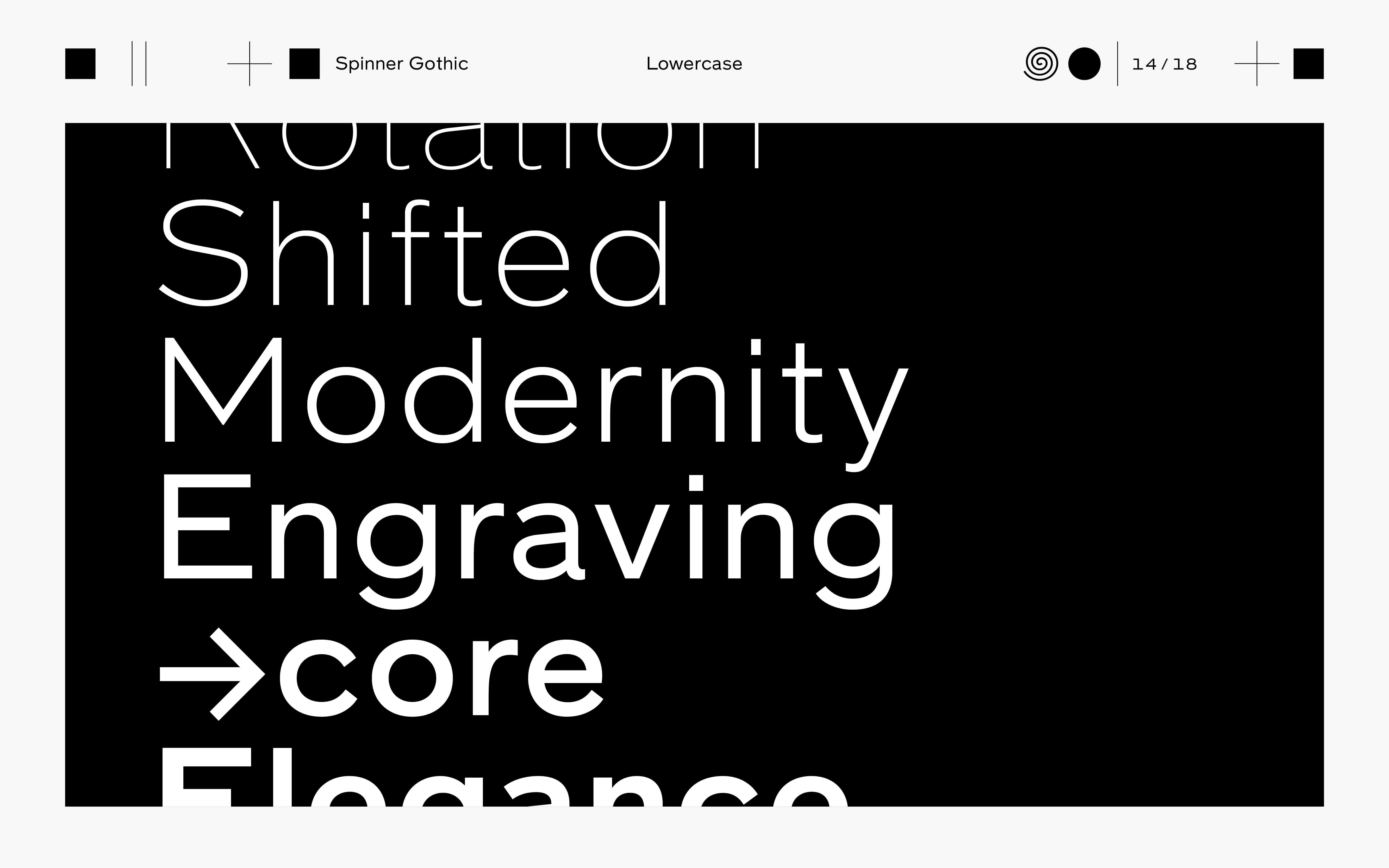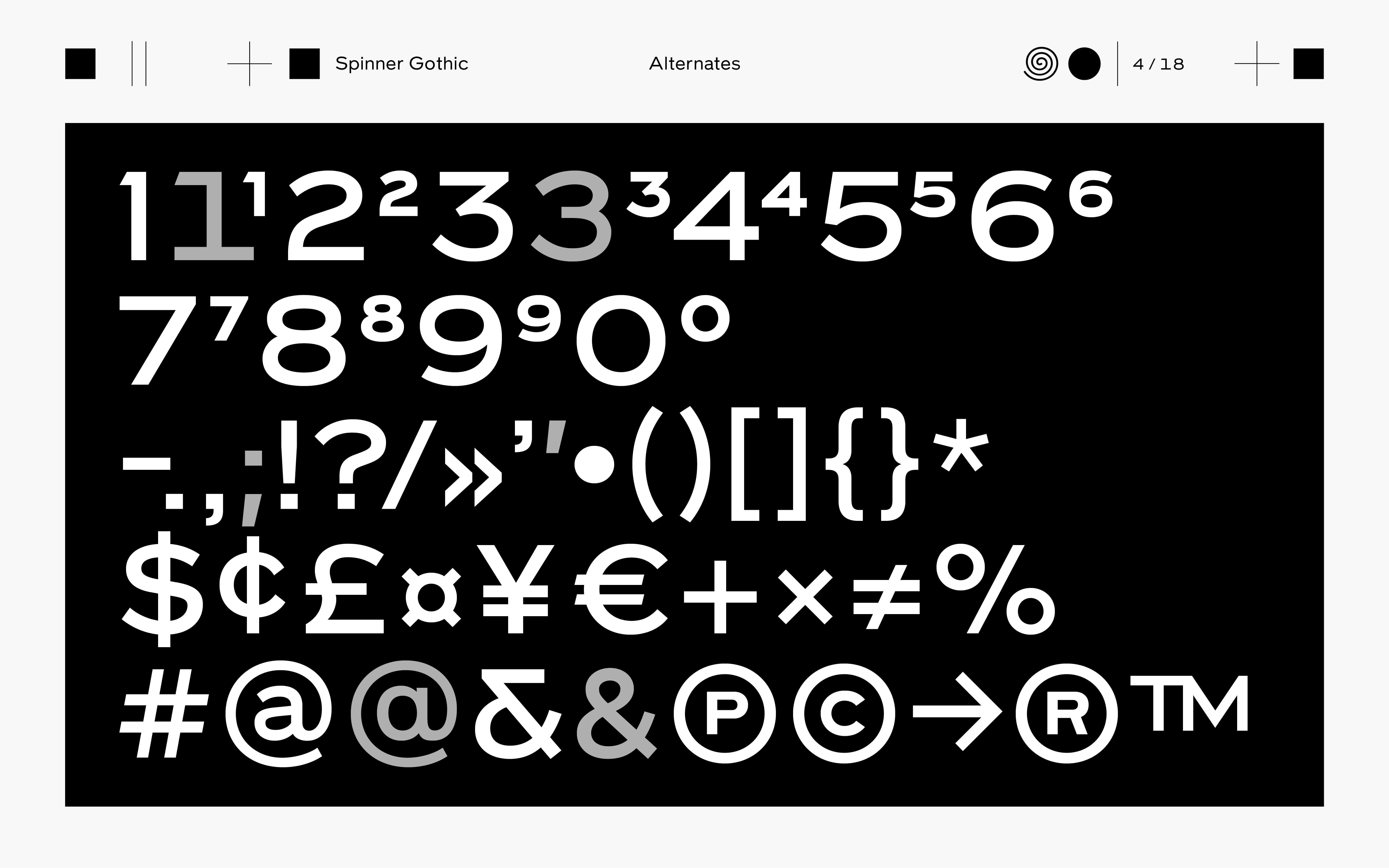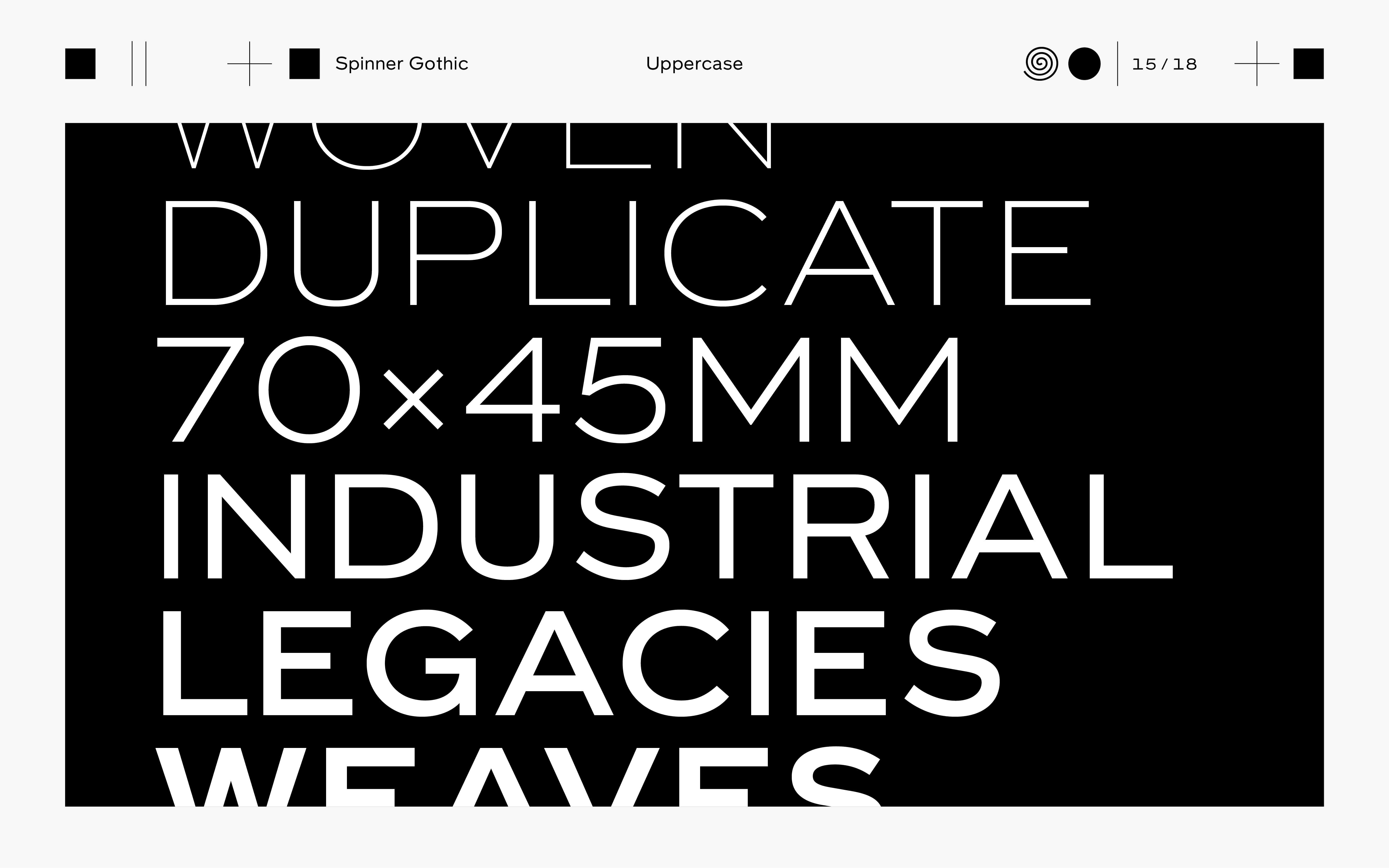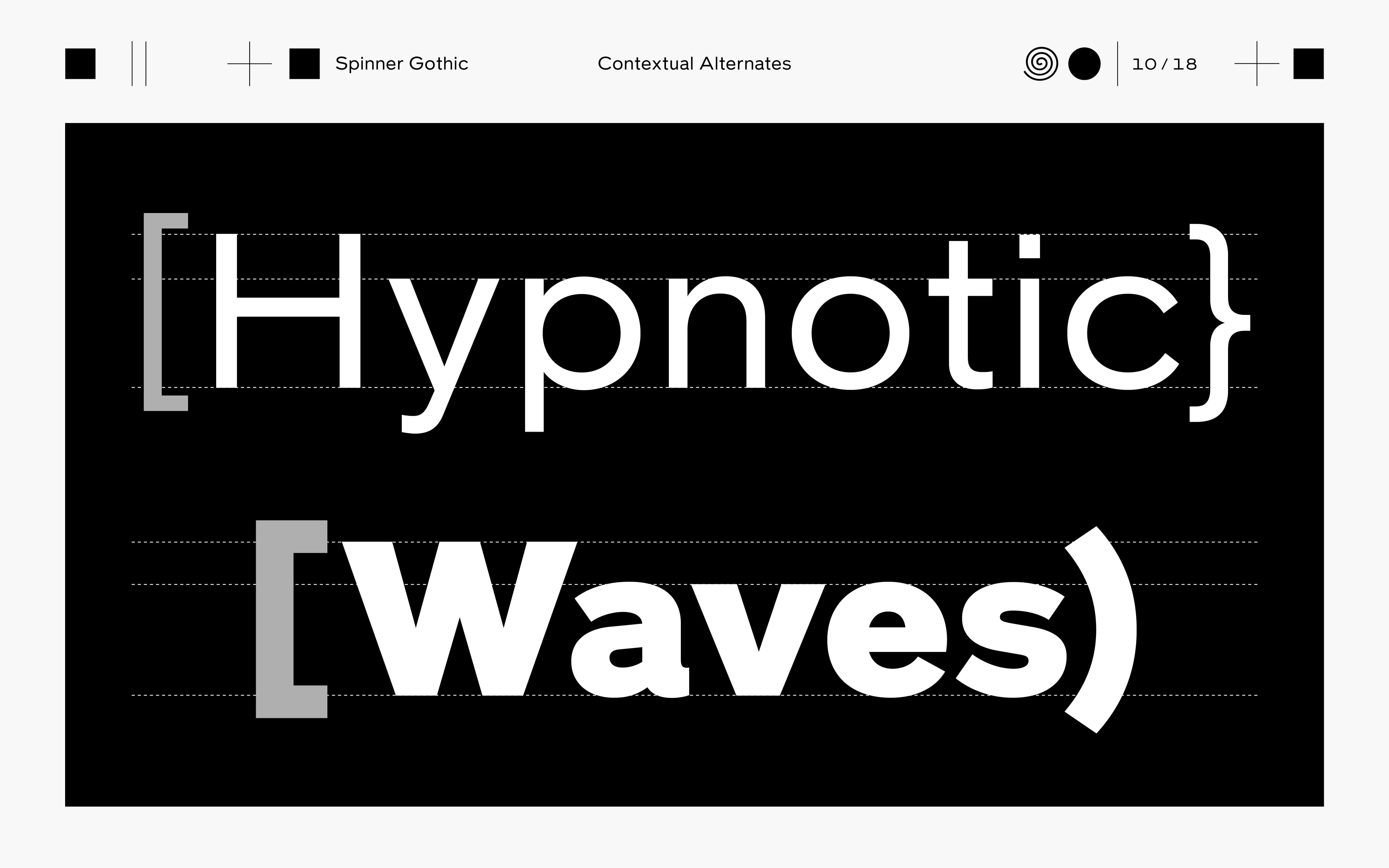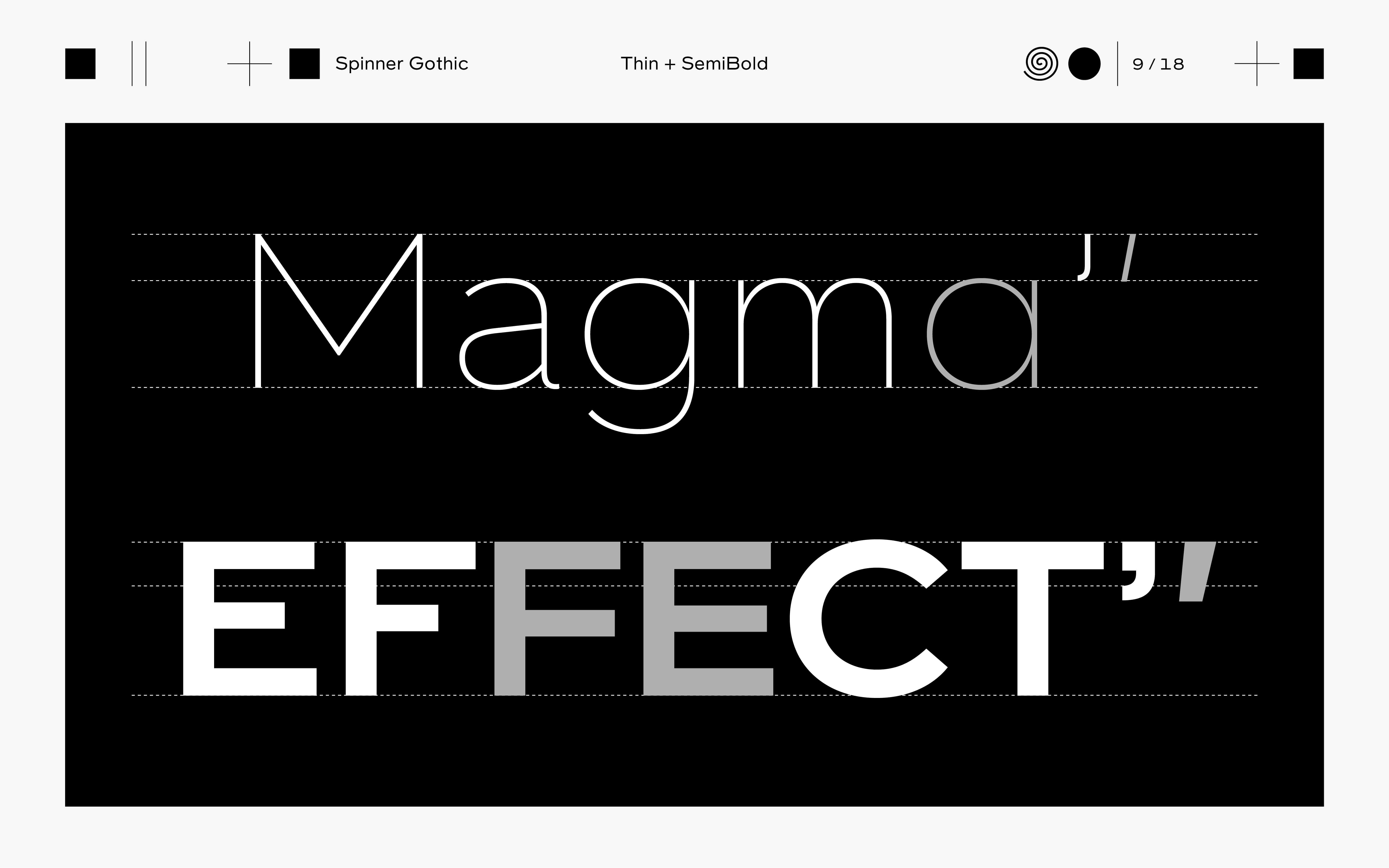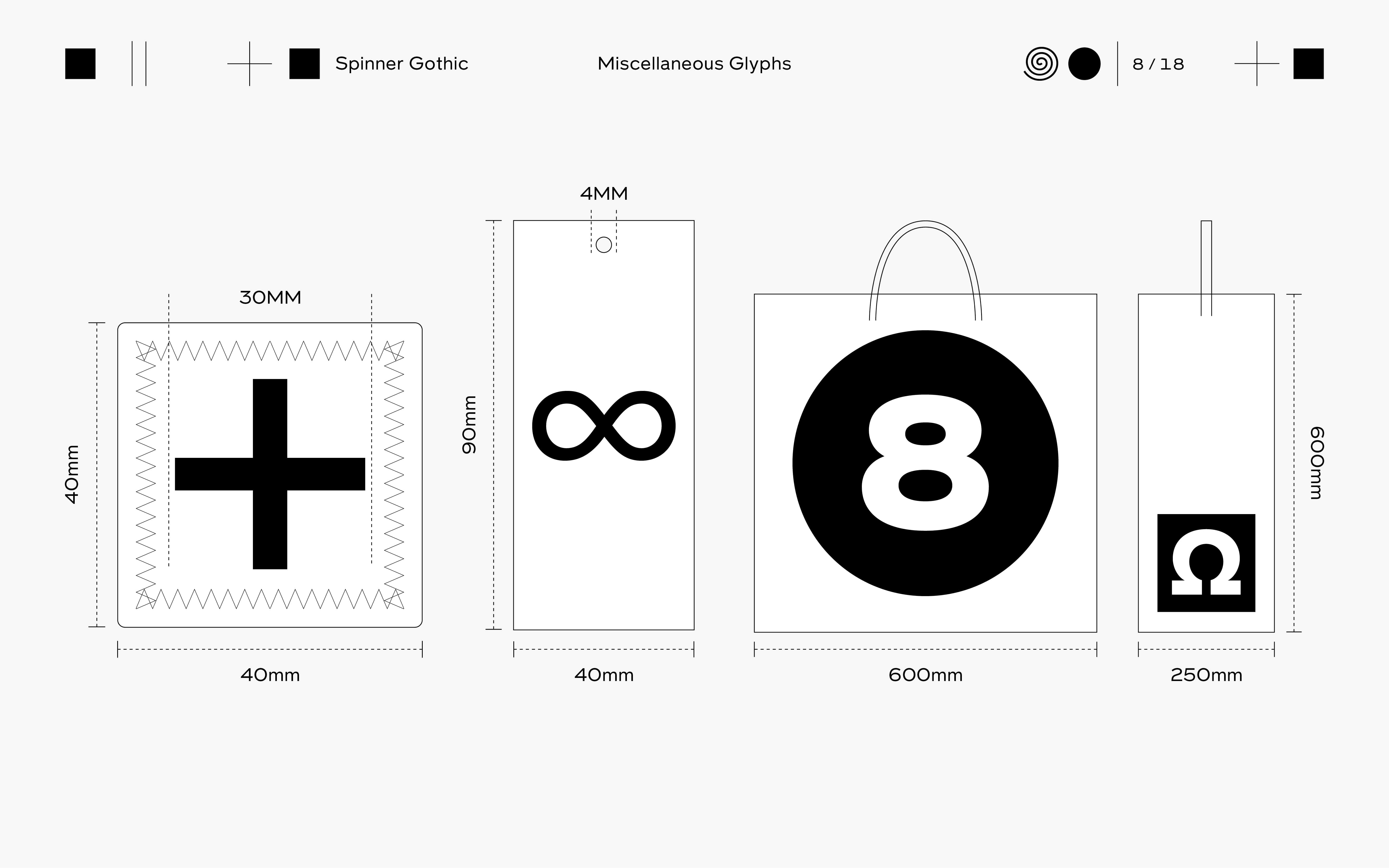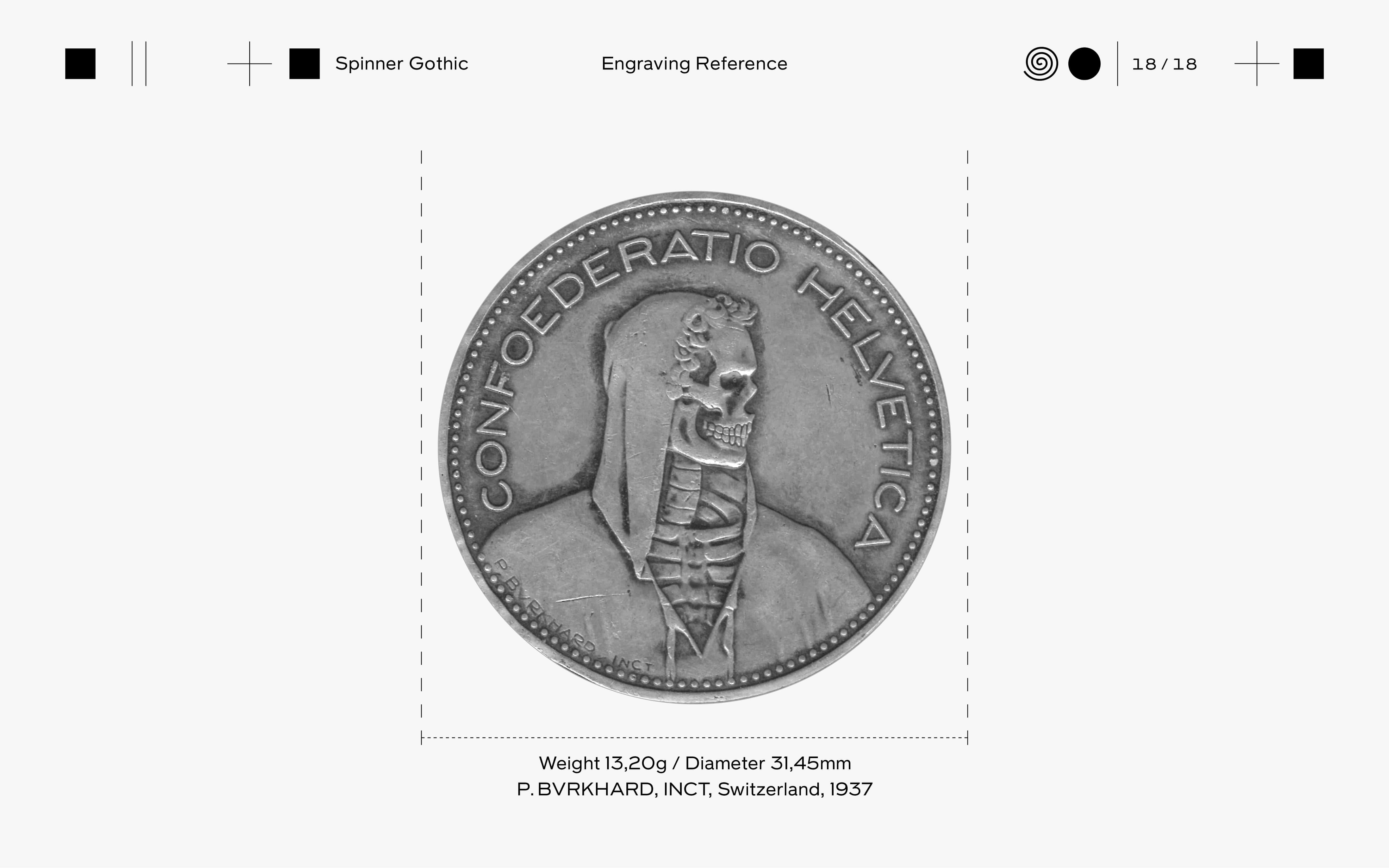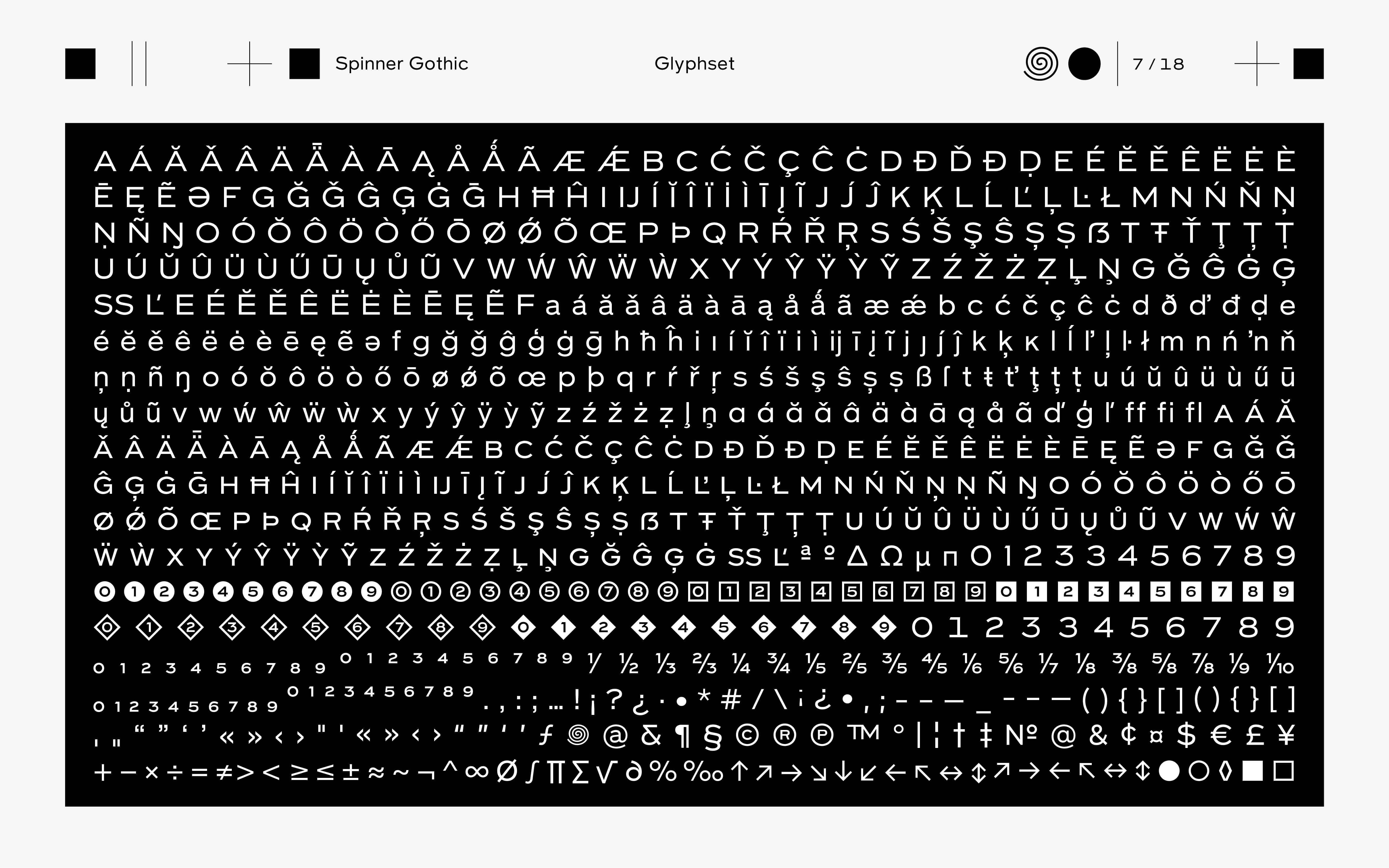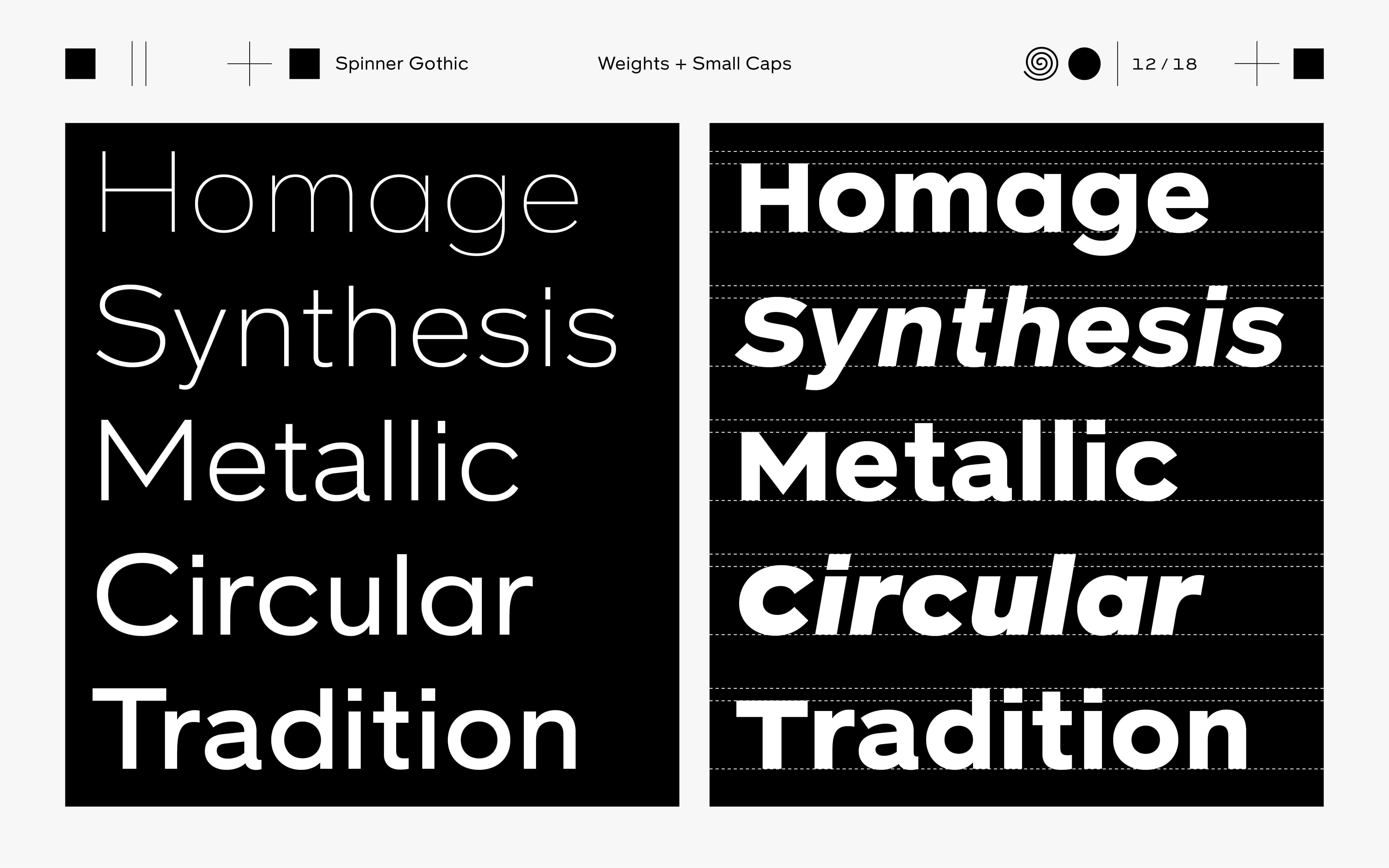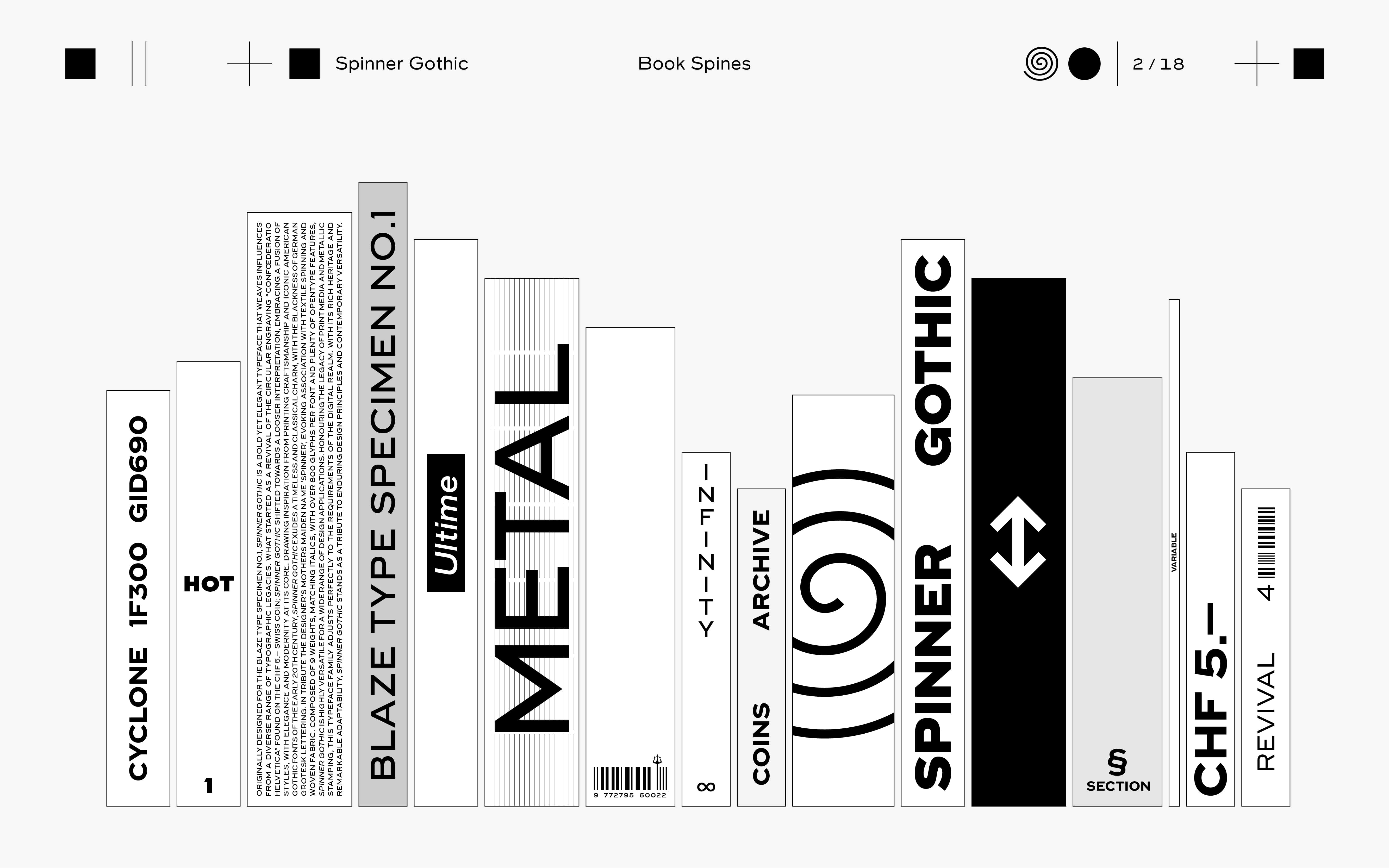
Spinner Gothic
Originally designed for the Blaze Type Specimen No.1, Spinner Gothic is a bold yet elegant typeface that weaves influences from a diverse range of typographic legacies.
What started as a revival of the circular engraving “Confœderatio Helvetica” found on the CHF 5.— Swiss Coin; Spinner Gothic shifted towards a looser interpretation, embracing a fusion of styles, with elegance and modernity at its core.
Drawing inspiration from printing craftsmanship and iconic American Gothic fonts of the early 20th century, Spinner Gothic exudes a timeless and classical charm, with the blackness of German Grotesk lettering. In tribute the designer’s mothers maiden name ‘Spinner’, evoking association with textile spinning and woven fabric.
Composed of 9 weights, matching italics, with over 800 glyphs per font and plenty of OpenType features, Spinner Gothic is highly versatile for a wide range of design applications. Honouring the legacy of print media and metallic stamping, this typeface family adjusts perfectly to the requirements of the digital realm. With its rich heritage and remarkable adaptability, Spinner Gothic stands as a tribute to enduring design principles and contemporary versatility.
Guillaume Sbalchiero